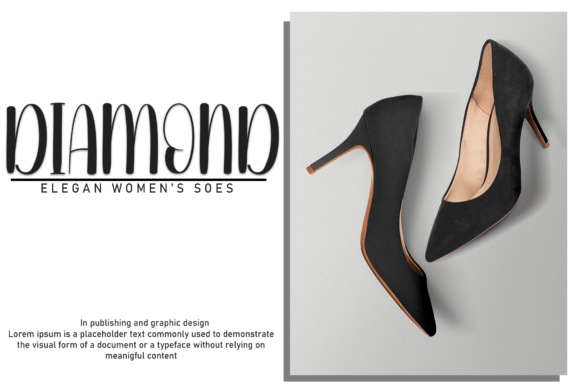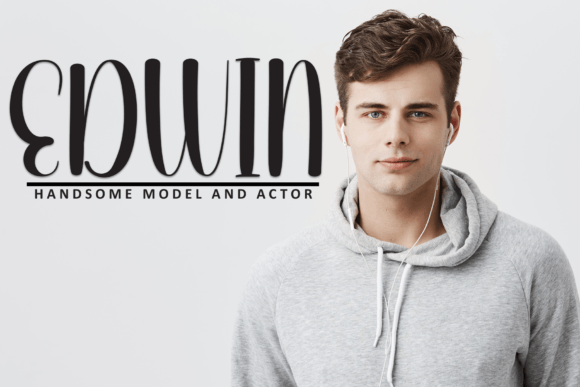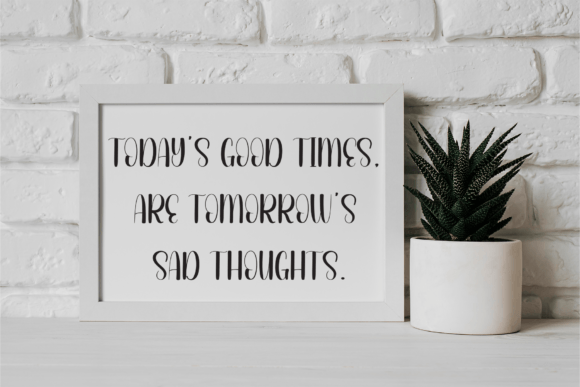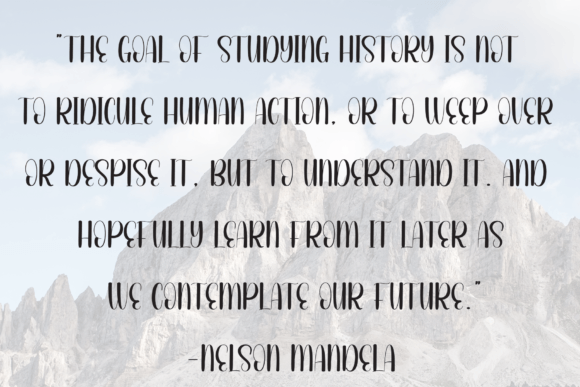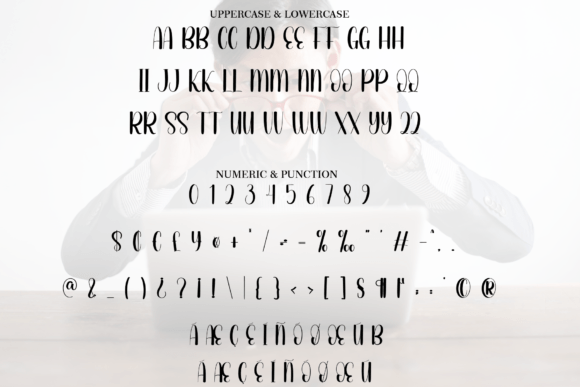
Introducing Amazed Font: The Sweet and Friendly Handwritten Font for Your Design Needs
Are you looking for a font that can add a touch of sweetness and friendliness to your designs? Look no further than Amazed Font! This beautiful handwritten font is perfect for creating wedding invitations, cards, and other designs that require a fun and playful touch. In this article, we’ll take a closer look at Amazed Font, its features, and how you can use it to elevate your designs.
What is Amazed Font?
Amazed Font is a sweet and friendly handwritten font that’s perfect for designers and crafters who want to add a personal touch to their work. This font is designed to be fresh and cute, making it ideal for a variety of design projects, from wedding invitations and cards to posters and social media graphics.
Key Features of Amazed Font
- Handwritten style: Amazed Font has a beautiful handwritten style that’s perfect for creating personal and unique designs.
- Sweet and friendly: This font has a sweet and friendly tone that’s sure to delight your audience.
- Fresh and cute: Amazed Font is designed to be fresh and cute, making it perfect for designs that require a playful touch.
- Versatile: This font can be used for a variety of design projects, from wedding invitations and cards to posters and social media graphics.
How to Use Amazed Font in Your Designs
Amazed Font is easy to use and can be incorporated into your designs in a variety of ways. Here are a few ideas to get you started:
- Wedding invitations: Amazed Font is perfect for creating beautiful and unique wedding invitations that will set the tone for your special day.
- Cards: This font is great for creating handmade cards for special occasions, such as birthdays, holidays, and anniversaries.
- Posters: Amazed Font can be used to create eye-catching posters for events, promotions, and more.
- Social media graphics: This font is perfect for creating fun and engaging social media graphics that will help you connect with your audience.
Tips for Using Amazed Font Effectively
Here are a few tips for using Amazed Font effectively in your designs:
- Use it with a simple background: Amazed Font looks best with a simple background that won’t compete with the text.
- Experiment with colors: This font looks great in a variety of colors, so don’t be afraid to experiment and find the perfect color for your design.
- Use it sparingly: Amazed Font is a statement font, so use it sparingly to add emphasis and interest to your design.
Amazed Font is a beautiful and versatile handwritten font that’s perfect for designers and crafters who want to add a personal touch to their work. With its sweet and friendly tone, fresh and cute style, and versatility, this font is sure to become a favorite in your design arsenal. Whether you’re creating wedding invitations, cards, posters, or social media graphics, Amazed Font is the perfect choice.